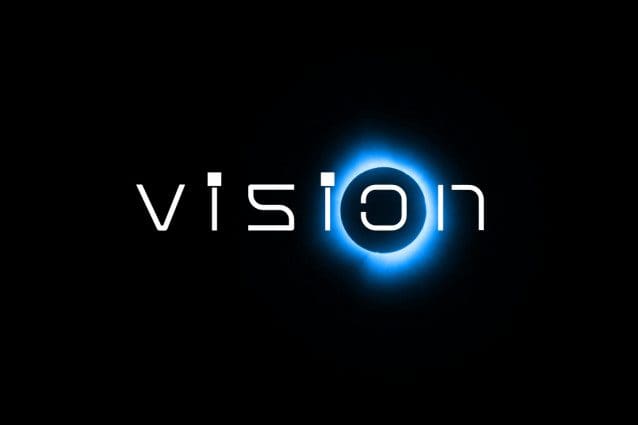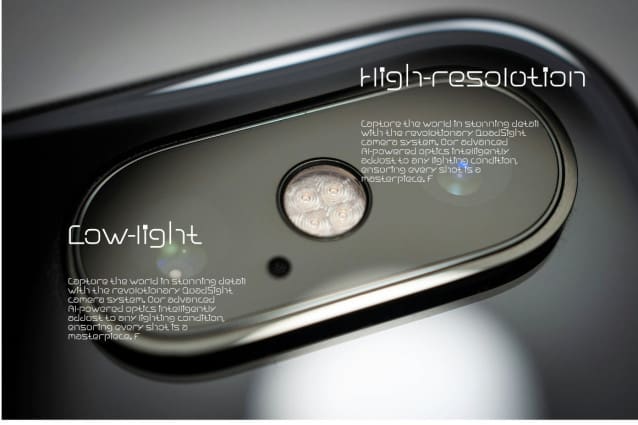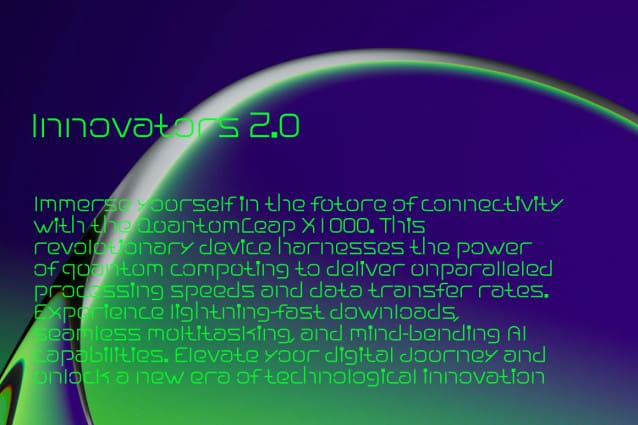
Nuixyber Pro Original Inno Font
Nuixyber Pro Original Inno Font is a futuristic font style with sophisticated, modern and minimalist allcaps characters. Its futuristic aesthetics bring a whole new dimension to your designs, making them stand out. Whether you’re working on a website, poster, logo, or any other project, this font adds that extra touch of innovation and sophistication.
Designer Name: ffeeaarr